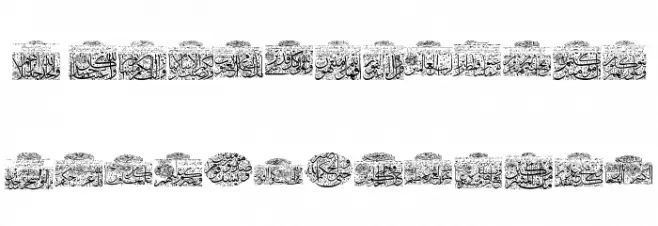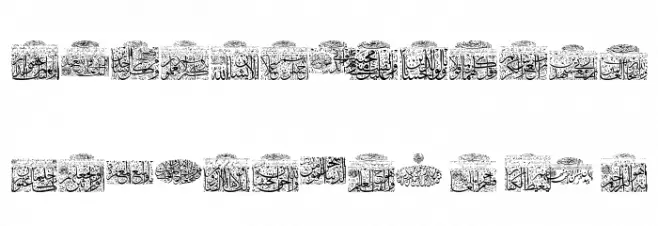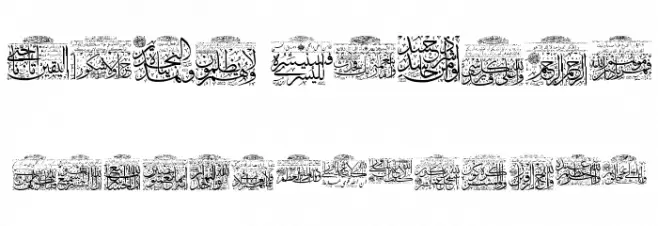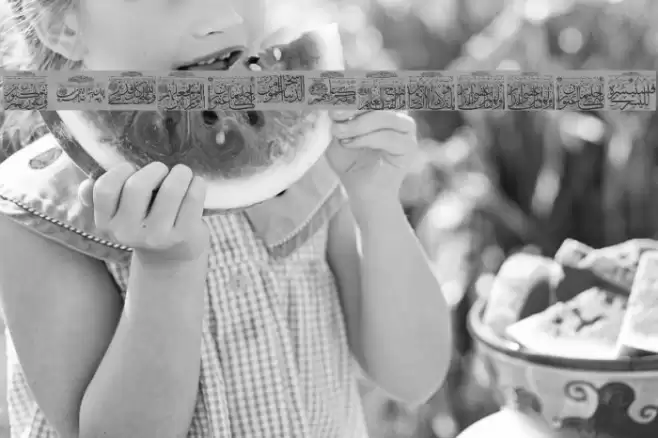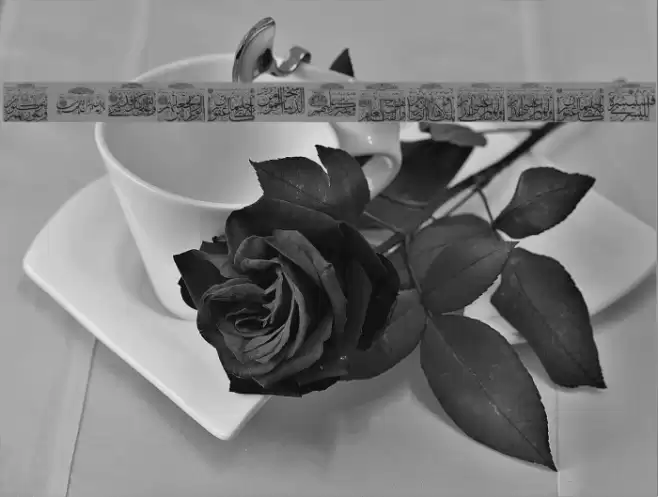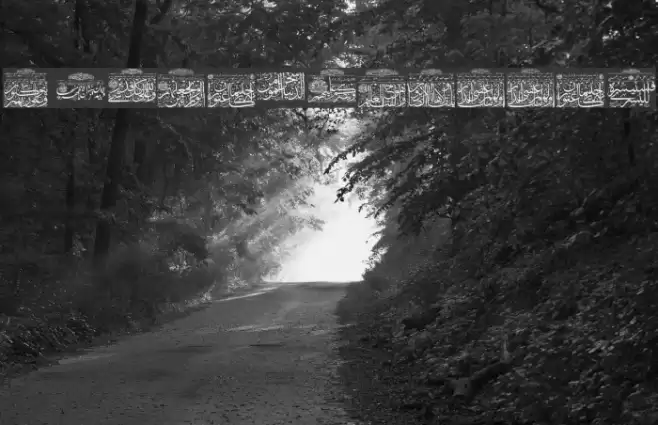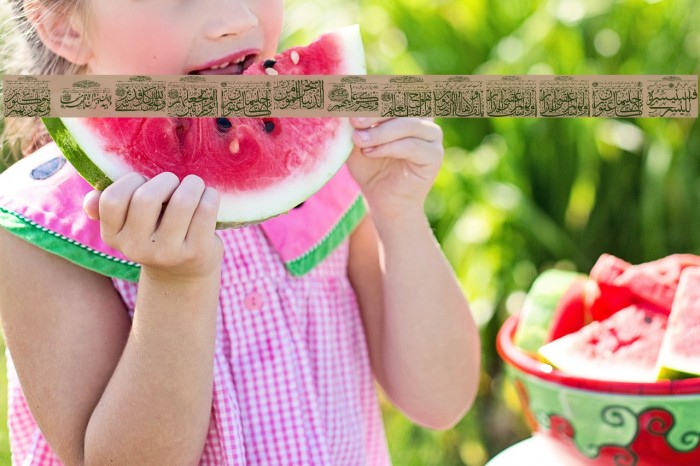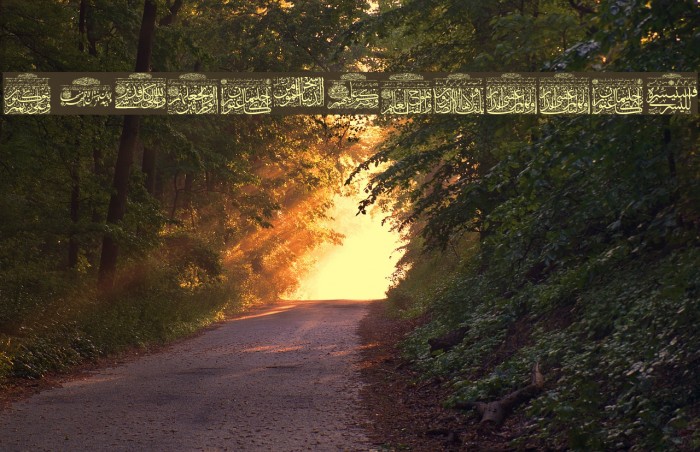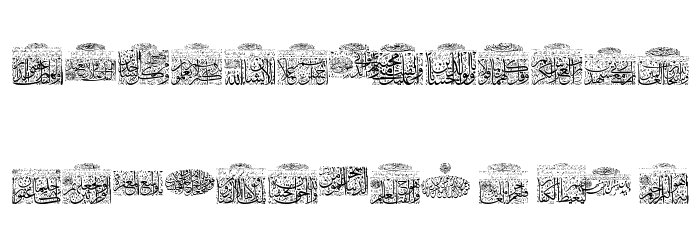
My Font Quraan 4
Highly ornate Arabic script with intricate decorative elements, featuring bold strokes and elaborate flourishes typical of traditional calligraphic styles used in religious manuscripts. The characters are enclosed in decorative frames, emphasizing a sense of reverence and artistry.
Ornate, decorative Arabic calligraphy with bold, intricate detailing.
- Proposed Projects: Religious texts, ceremonial documents, art prints, historical reproductions, cultural branding.
- Character Spacing: Tight
- Contrast: High
- Overall Style: Decorative, Traditional, Religious
- Use Case: Religious manuscripts, ceremonial headings, artistic displays